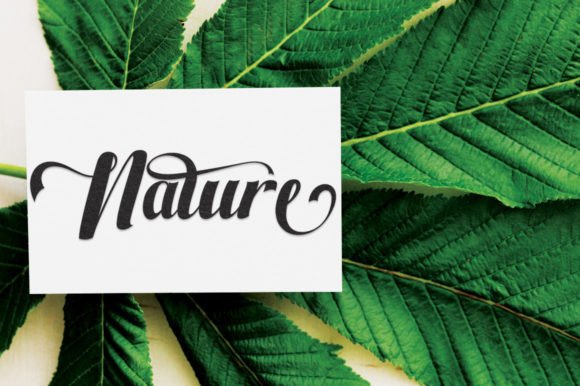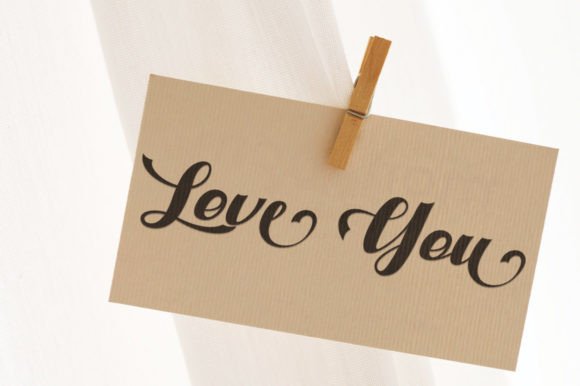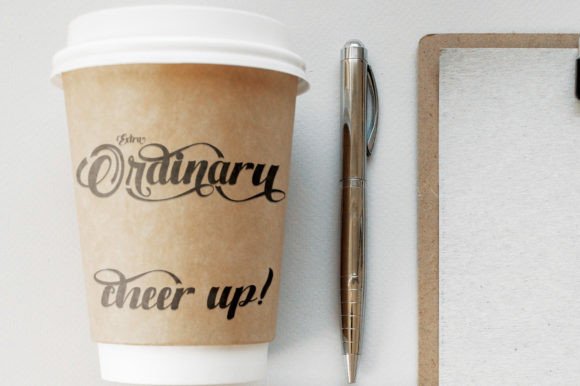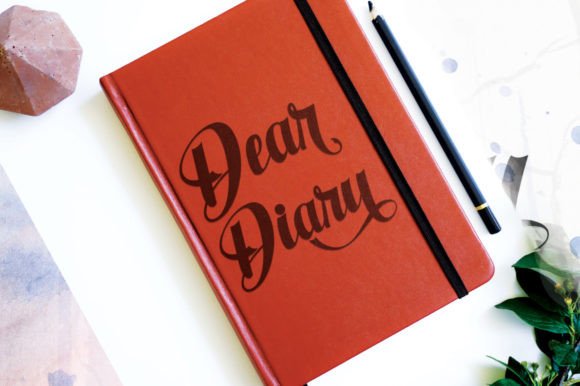
Introducing Extra Ordinary Font: Elevate Your Designs with Elegance
In the world of design, the right font can make all the difference. It’s not just about conveying a message; it’s about doing so with style and impact. If you’re on the hunt for a font that combines boldness with elegance, look no further than the Extra Ordinary Font. This gorgeous bold script font is designed to make your work stand out, thanks to its elegant and curvy lines that add a touch of sophistication to any project.
The Perfect Font for Ambitious Projects
Extra Ordinary Font is more than just a pretty face. It’s a versatile tool that can elevate a wide range of projects. Whether you’re working on product packaging, branding projects, magazine covers, or social media content, this font is sure to make an impression. Its unique blend of boldness and elegance makes it perfect for designers who want to push their creative boundaries and create something truly memorable.
What Makes Extra Ordinary Font Special?
So, what sets Extra Ordinary Font apart from other fonts on the market? For starters, its elegant and curvy lines give it a distinctive look that’s both modern and timeless. But that’s not all. This font is also PUA encoded, which means you can access all of the glyphs and swashes with ease. This feature makes it incredibly user-friendly, allowing you to focus on the creative aspects of your project rather than getting bogged down in technical details.
One of the best things about Extra Ordinary Font is its versatility. Here are just a few examples of how you can use it to take your designs to the next level:
• Product Packaging: Make your products stand out on store shelves with bold, eye-catching labels and packaging.
• Branding Projects: Create a lasting impression with a font that exudes elegance and sophistication.
• Magazine Covers: Draw readers in with a cover that’s both stylish and attention-grabbing.
• Social Media: Elevate your social media content with a font that’s sure to get noticed.
• Weddings: Add a touch of romance and whimsy to your wedding designs, from invitations to signage.
Why Designers and Crafters Love Extra Ordinary Font
Designers and crafters are always on the lookout for fonts that can help them create something truly special. Here are just a few reasons why Extra Ordinary Font has become a favorite among creatives:
• Ease of Use: With PUA encoding, you can easily access all of the font’s features without needing to learn complicated design software.
• Customization: The font’s glyphs and swashes give you the freedom to experiment and create unique designs that reflect your personal style.
• Impact: Whether you’re working on a commercial project or a personal craft, Extra Ordinary Font is sure to make an impact.
If you’re looking for a font that will take your designs to the next level, look no further than Extra Ordinary Font. Its elegant and curvy lines, combined with its ease of use and versatility, make it the perfect choice for designers and crafters who want to create something truly extraordinary. Whether you’re working on a commercial project or a personal craft, this font is sure to help you achieve your creative vision.